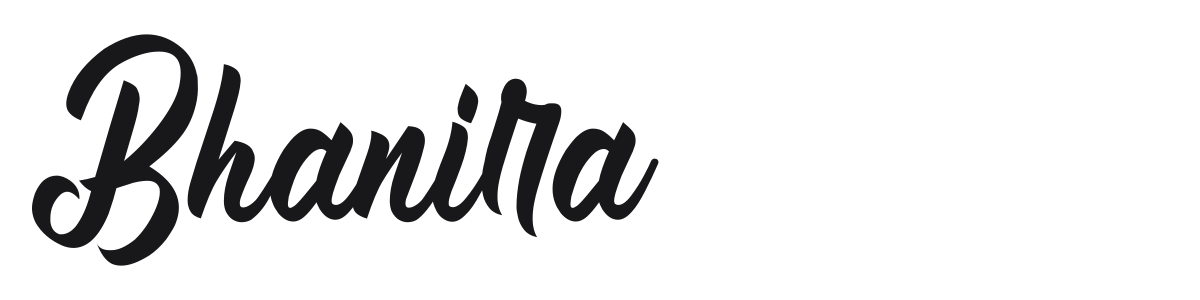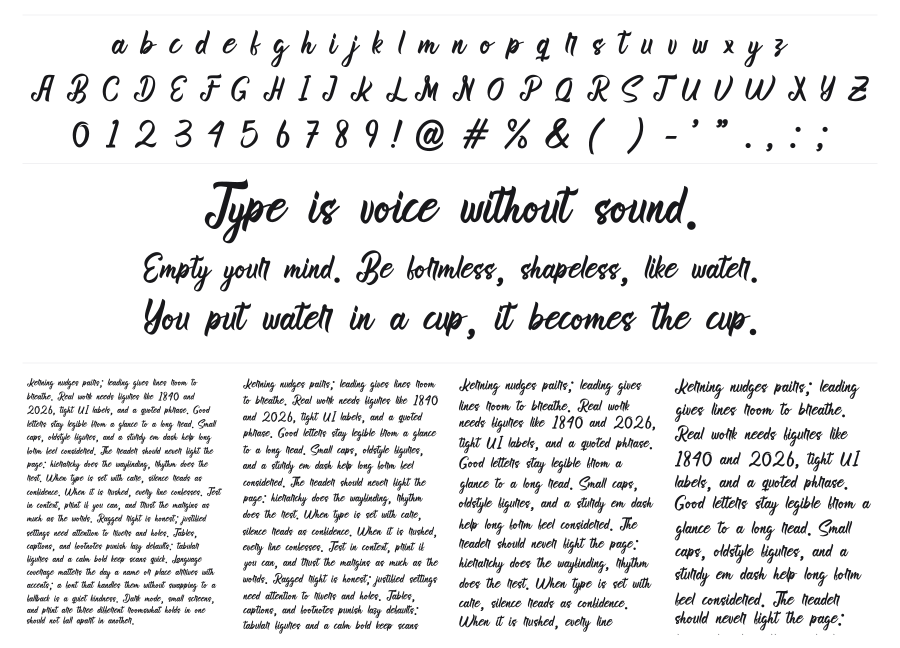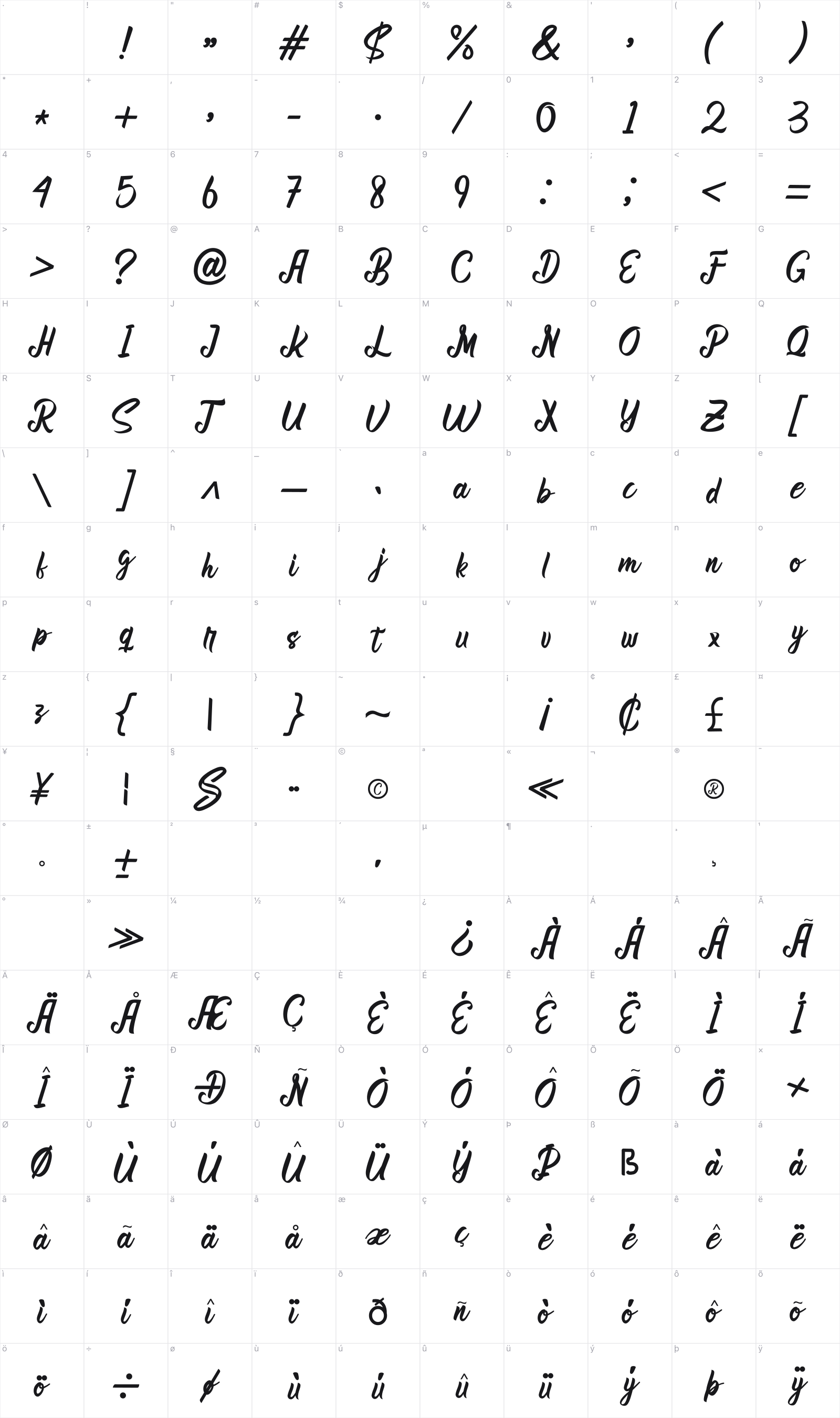
Bhanira
Bhanira is a bold brush script with the loose, ink-soaked energy of hand lettering done at speed. Thick downstrokes and wispy hairline upstrokes create strong contrast that keeps it lively at large sizes. It carries the warmth of handmade craft without sacrificing legibility.